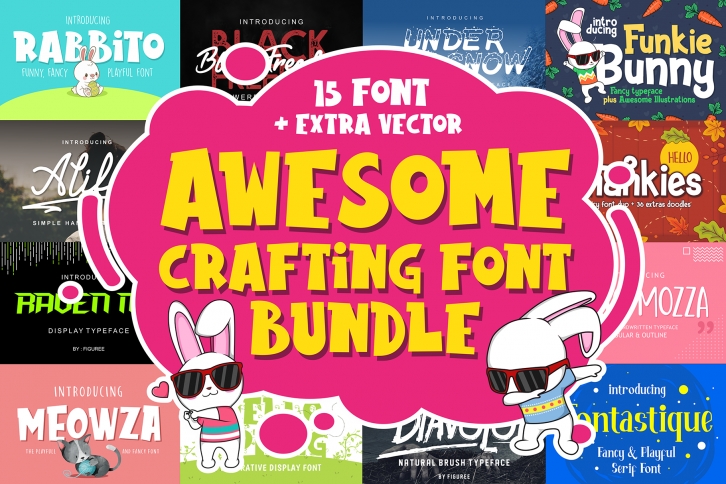
Awesome Crafting Bundle is a great font that was designed by figuree. Imagine the amount of combinations you can create using this font! The archive is 19.15 MB and it was released on July 7, 2019. Awesome Crafting Bundle looks beautiful on wedding invitations, greeting cards, logos, posters, labels, t-shirt designs, logos, business cards and is perfect for use in ink or watercolor works, fashion, magazines, packaging and food menus, children's books and more!